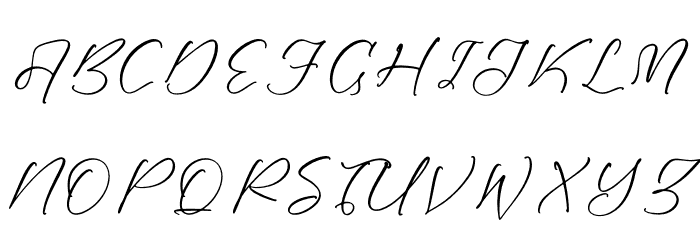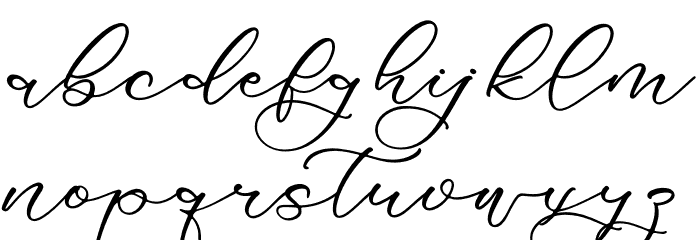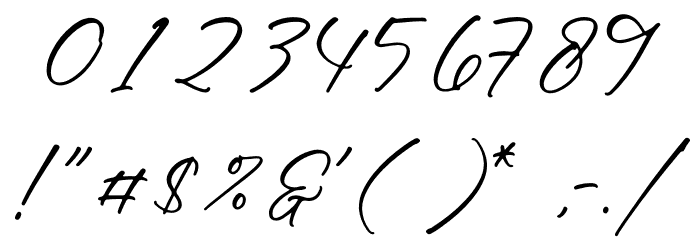
Kerhatine Witckity Font
Elegant script font with flowing, cursive strokes and a handwritten appearance.
A graceful, cursive script font.
- Font: Kerhatine Witckity
- Proposed Projects: Invitations, greeting cards, elegant branding.
- Category: Script
- Overall Style: Elegant, Handwritten
- Use Case: Logos, Invitations, Decorative text